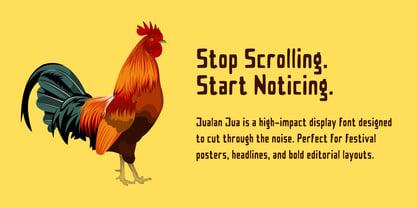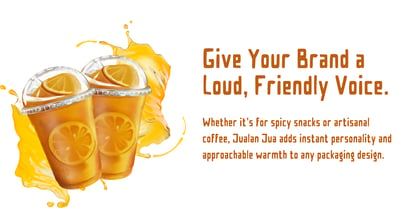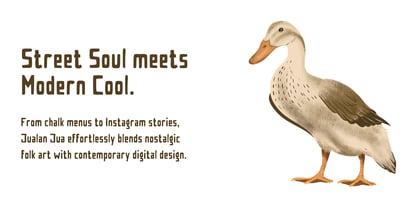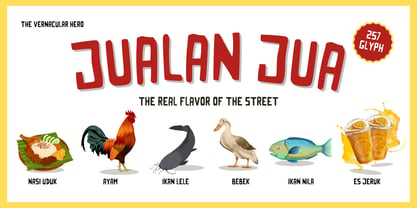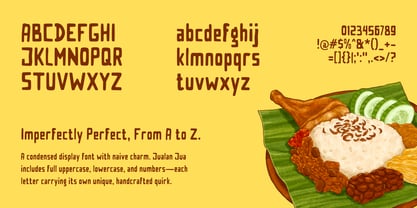
Jualan Jua
by Kalam
The Jualan Jua Font Family was designed by Wahyu Eka Prasetya, Moch Zamroni and published by Kalam. Jualan Jua contains 2 styles and family package options. More about this family
Jualan Jua – The Raw, Authentic Spirit of Street Vendor Signage
Jualan Jua is a playful, hand-crafted display font inspired by the spontaneous, hand-painted banners of traditional Indonesian roadside food stalls and street vendors (spanduk pecel lele & warung tenda). Built with uneven organic strokes, quirky quirks, and a tall condensed rhythm, it captures the genuine warmth, ingenuity, and vibrant energy of grassroots vernacular lettering.
Every glyph in Jualan Jua carries a raw, hand-drawn charm that refuses to be strictly uniform. It delivers an unmistakably human, approachable feel while retaining solid readability even at high visual impact.
Key Features & Character:
• Authentic Hand-Drawn Feel: Irregular contours and subtle naive proportions give it genuine warmth and personality.
• Condensed & Impactful: Tall vertical presence designed to stand out on crowded banners and packaging.
• Complete Set: Full Uppercase, Lowercase, Numbers, and standard Punctuation/Symbols.
Best Used For:
• Food & Beverage: Street food packaging, cafe menus, food truck branding, and casual restaurant logos.
• Merchandise & Apparel: Casual streetwear, tote bags, stickers, and retro badges.
• Display & Editorial: Event posters, headline typography, YouTube thumbnails, and social media graphics that need an earthy, indie vibe.
Bring genuine street-level character and unapologetic soul to your designs with Jualan Jua!
Designers: Wahyu Eka Prasetya, Moch Zamroni
Foundry: Kalam